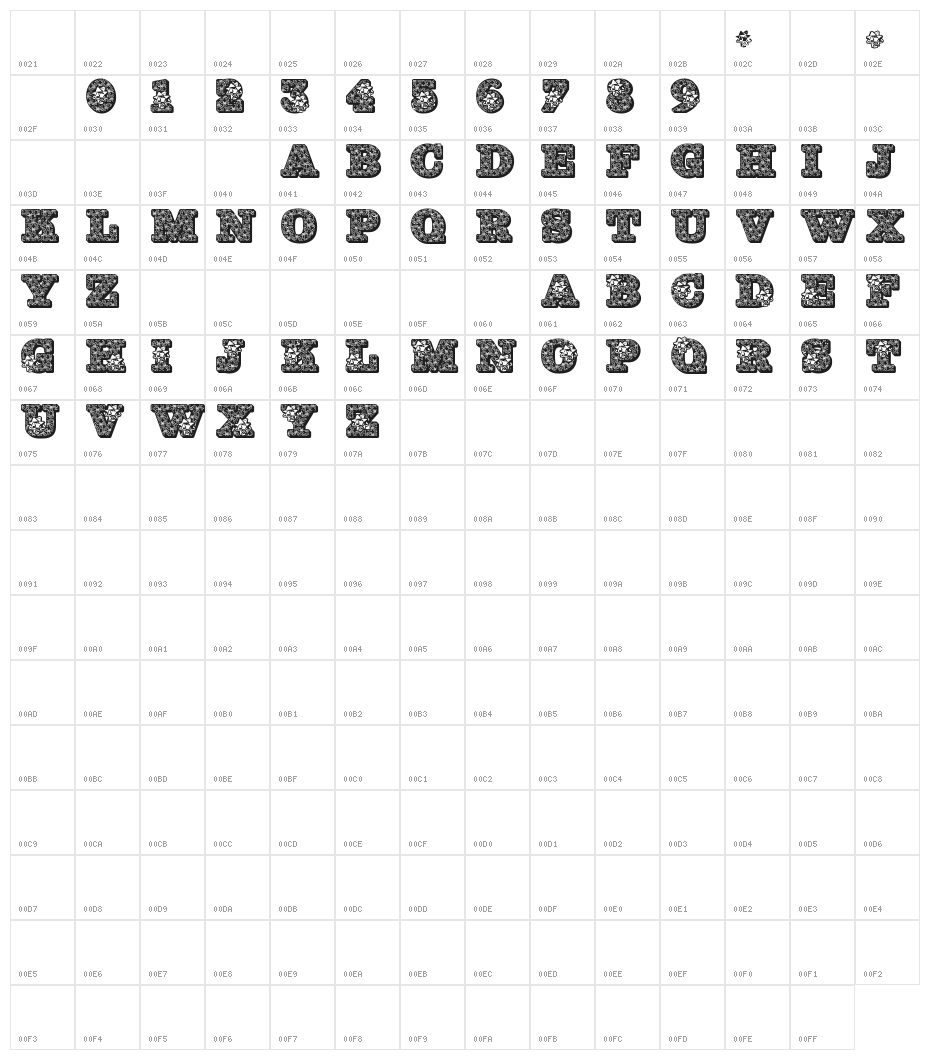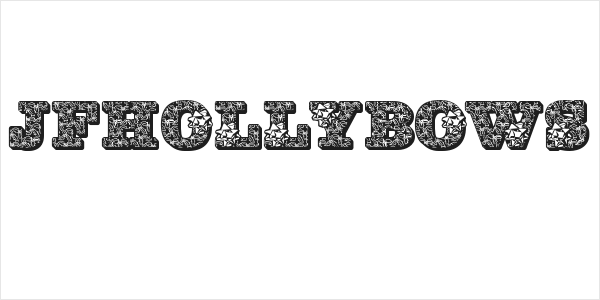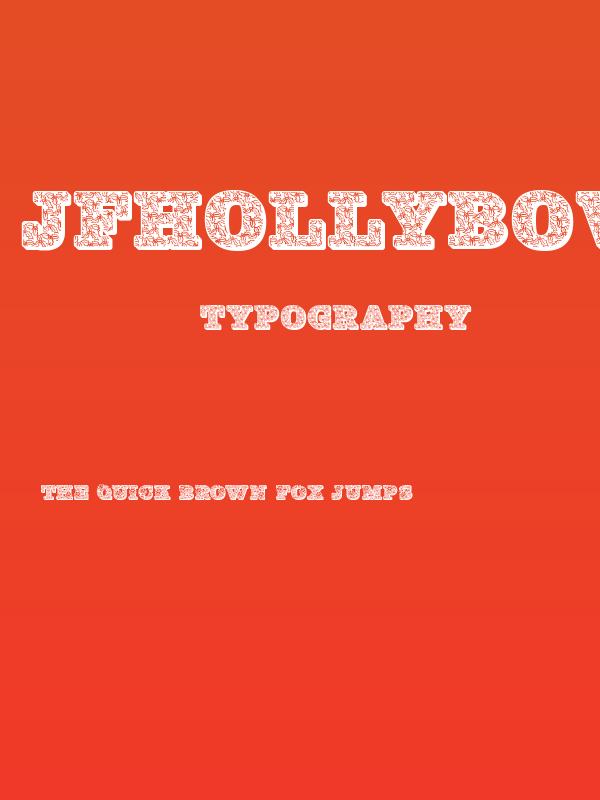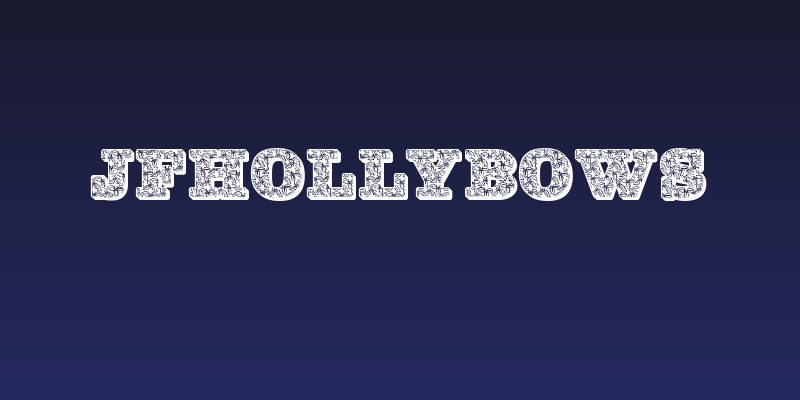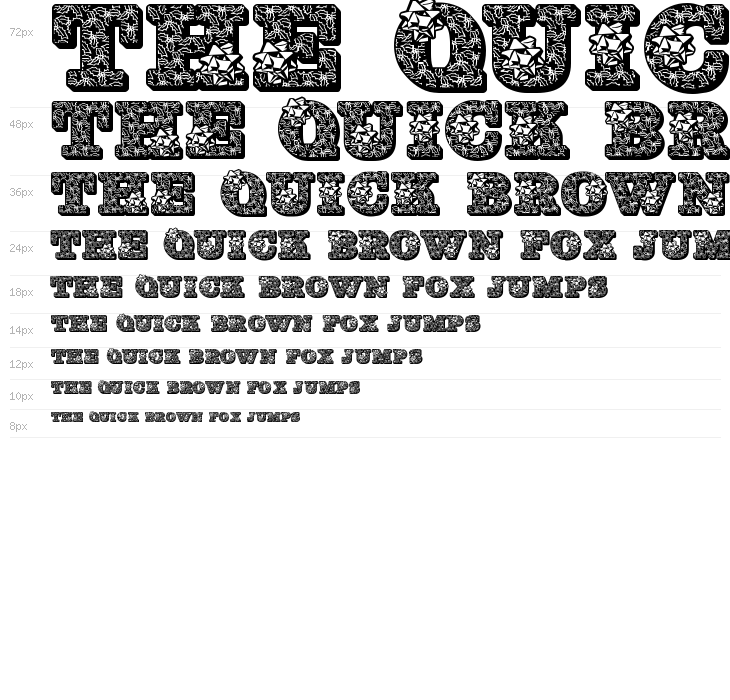
JFHollyBows Font
JFHollyBows Description
This font features a bold, decorative style with intricate patterns filling each character. The letters and numbers are adorned with festive holly and bow motifs, creating a rich, textured appearance. The design is highly detailed, making it ideal for holiday-themed projects. The uppercase and lowercase letters maintain a consistent style, ensuring uniformity across different text elements. The numbers and special characters are equally ornate, contributing to the overall festive aesthetic. This font is perfect for creating eye-catching designs that require a touch of elegance and holiday spirit.
| Proposed Projects | Ideal for holiday cards, festive banners, seasonal advertisements, and decorative invitations. |